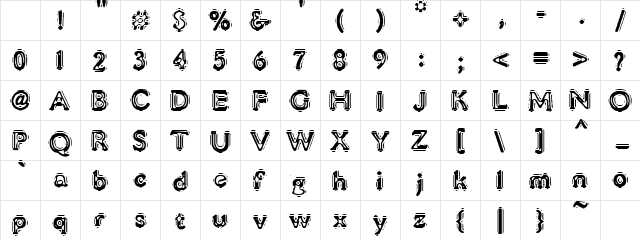
VTC LiquorCrystalDisplay is built around its visual character rather than neutral utility - its distinctive forms are designed to make an impression at display sizes.
Font Pairing: Pair with a clean neutral sans-serif for body copy to let VTC LiquorCrystalDisplay's character lead without overwhelming the composition.
Pro Tip: Use VTC LiquorCrystalDisplay exclusively at display sizes - it was designed to be seen, not read at length. Let a neutral companion handle body copy.